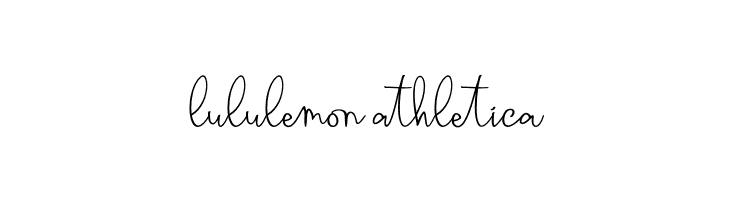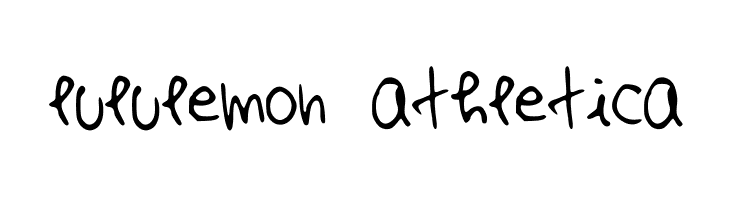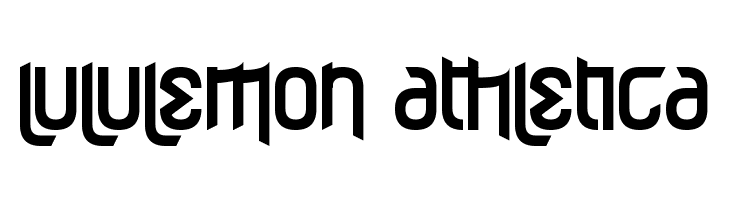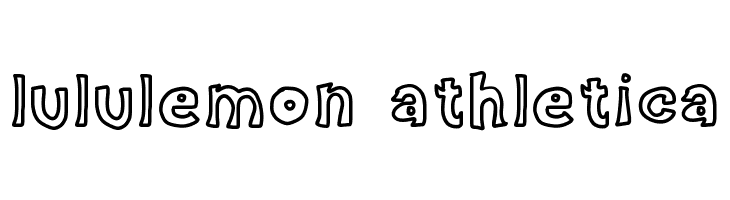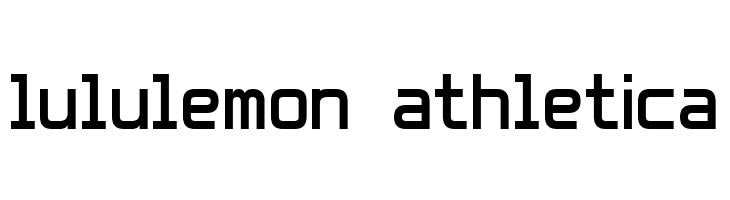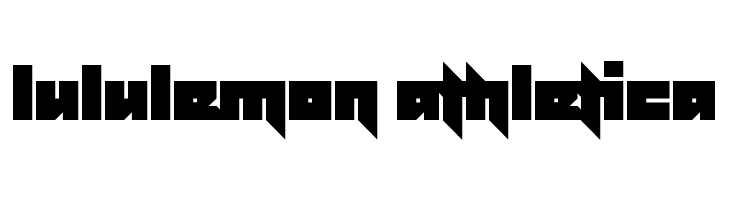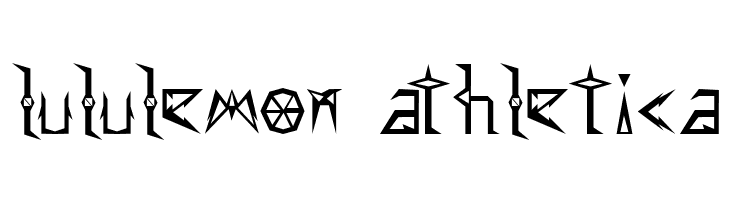
A playful, handwritten font with a casual and informal style.
A bold, decorative font with a 3D effect and double outlines for a striking appearance.
A playful, hand-drawn font with bold, cartoonish outlines and a whimsical style.
A bold, angular font with a futuristic and aggressive style.
A modern, geometric font with a clean, structured design.
A playful, handwritten script font with flowing, interconnected strokes.
A bold, hand-drawn font with an expressive and dynamic style.
A bold, geometric font with a modern and edgy design.